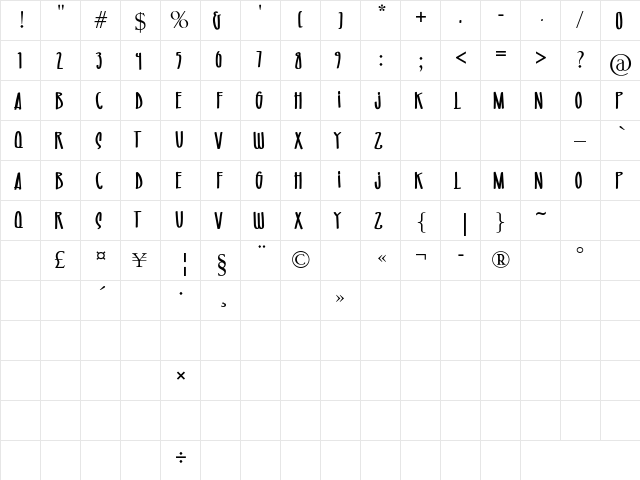
RIO & MA Regular
| Designer | Heri Puryanto |
Design Context for RIO & MA Typeface
RIO & MA is a composed and adaptable typeface that performs quietly and consistently across a wide range of design contexts.